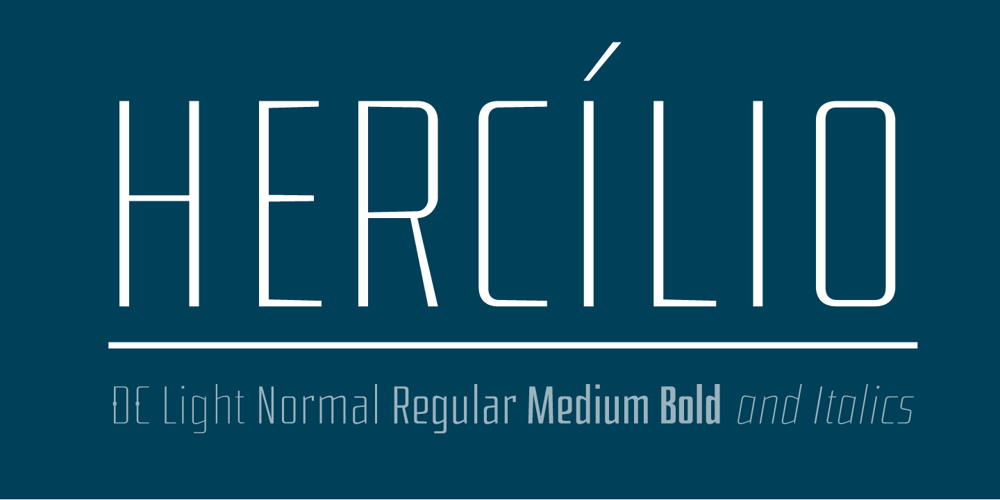
Hercílio
Hercílio font
Hercílio Font Family was designed by Jefferson Cortinove and published by Sea Types. Hercílio contains 11 styles and family package options. Hercílio is a typographic family without condensed serif, modern and geometric inspired by the architectural forms of the Hercílio Luz Bridge in Florianopolis | Brazi Comprising eleven (11), weights of which ten (10) business are: Five weights Romans: Light, Normal, Regular, Medium and Bold Five Italics weights: Light, Normal, Regular, Medium and Bold And a weight (FREE) Hercílio Decorative Comprising 430 glyphs in each source, brings support for 56 languages (Latin and West, Central and East European) still has features Open Type, ligatures and tabular figures. http://www.cort9.com/wp-content/uploads/2016/05/Specimen_Hercilio.pdf